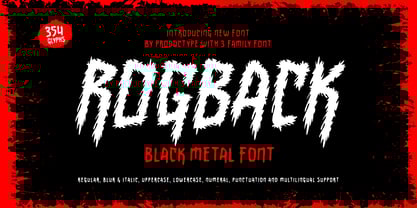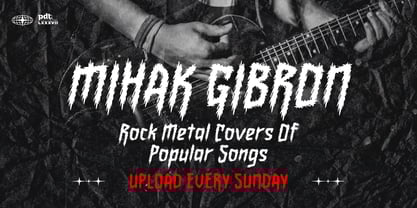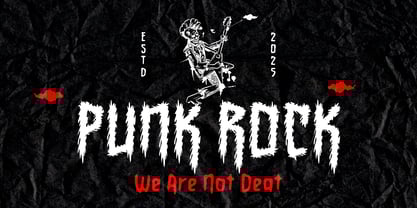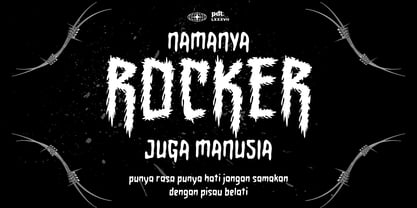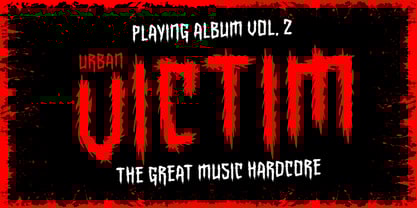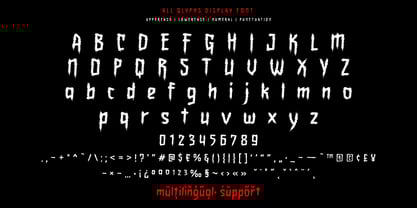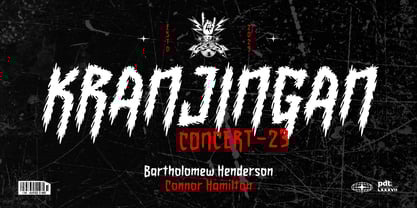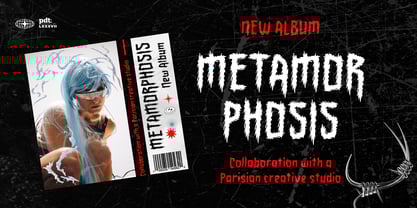
Rogback
von Product Type
Die Schriftfamilie Rogback wurde von Lita Faolina entworfen und von Product Type veröffentlicht. Rogback enthält 3 Stile und Familienpaketoptionen.
Rogback – Black Metal Font is a brutal and bold typeface inspired by underground black metal and hardcore aesthetics. Designed for those who dare to be different, Rogback delivers raw energy and sharp edges—perfect for band logos, music posters, album covers, and heavy branding visuals.
This font includes 3 unique styles: Regular, Blur, and Italic — allowing you to experiment and create intense visuals. With uppercase, lowercase, numerals, punctuation, and multilingual support, Rogback is both aggressive and versatile.
Whether you're a graphic designer, freelancer, or part of a metal band, Rogback brings the power and personality your project needs.
- Fonts include Multilingual: Support for 85 languages
Designer: Lita Faolina
Herausgeber: Product Type
Foundry: Product Type